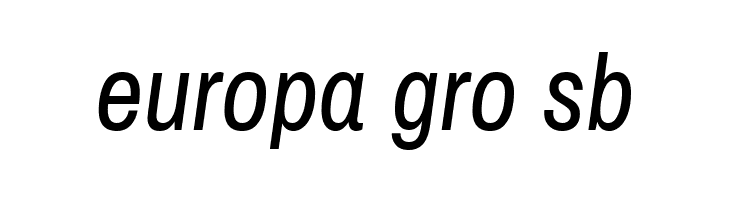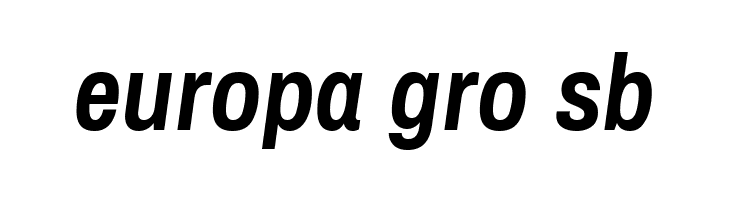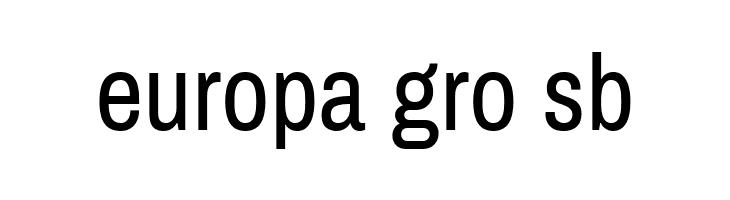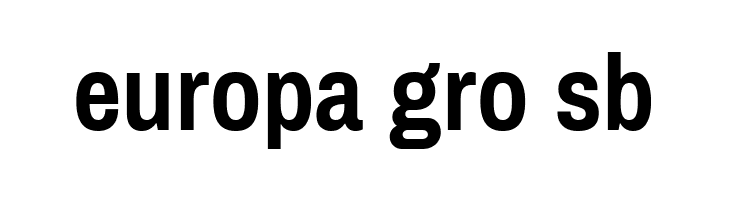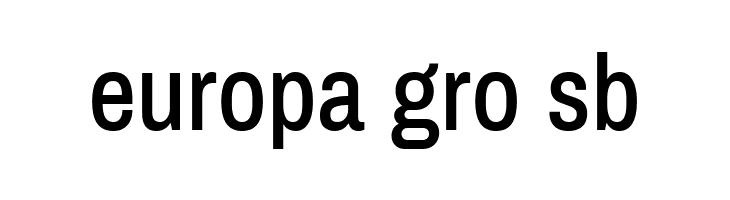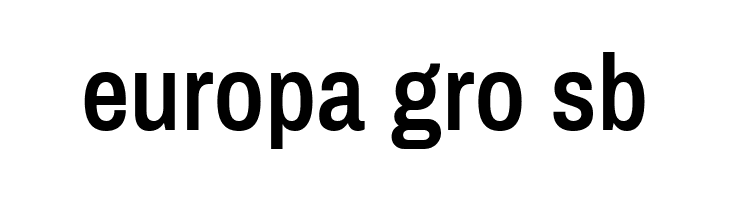
A modern, italicized sans-serif font with clean lines and consistent stroke width.
A modern, clean typeface with excellent readability and balanced proportions.
A modern, italic sans-serif font with medium weight and balanced proportions.
A bold, narrow sans-serif typeface with a modern and clean design.
A modern, narrow, bold italic font with tight spacing and minimal contrast.
A sleek, narrow italic typeface with a modern and professional appearance.
A modern, narrow sans-serif font with clean, consistent strokes.
A modern, narrow, italic font with medium weight and clean lines.
A modern, narrow sans-serif font with clean lines and uniform stroke width.
A modern, narrow sans-serif font with semi-bold weight and clear readability.